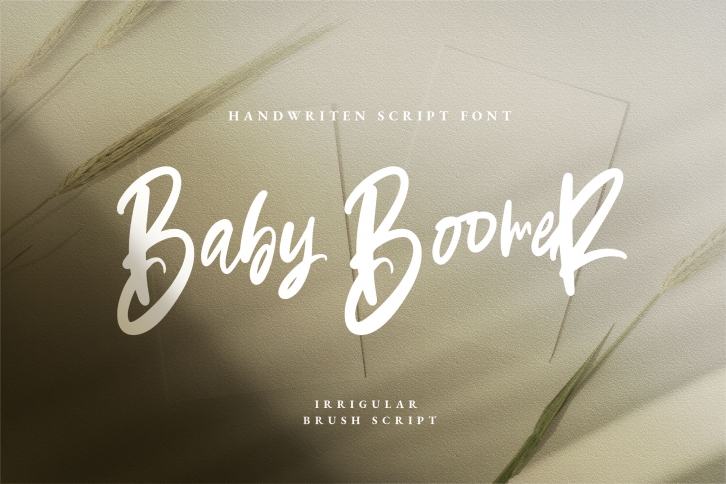
Baby boomer is a beautiful font that was designed by Dirtyline Studio. It's a great choice for designers and creatives who need such a font. It was released on September 1, 2019 and the file size is 14.47 MB. Baby boomer may give a more youthful, expressive and casual look to your project. It is a very beautiful, refined, elegant, and high-quality font.